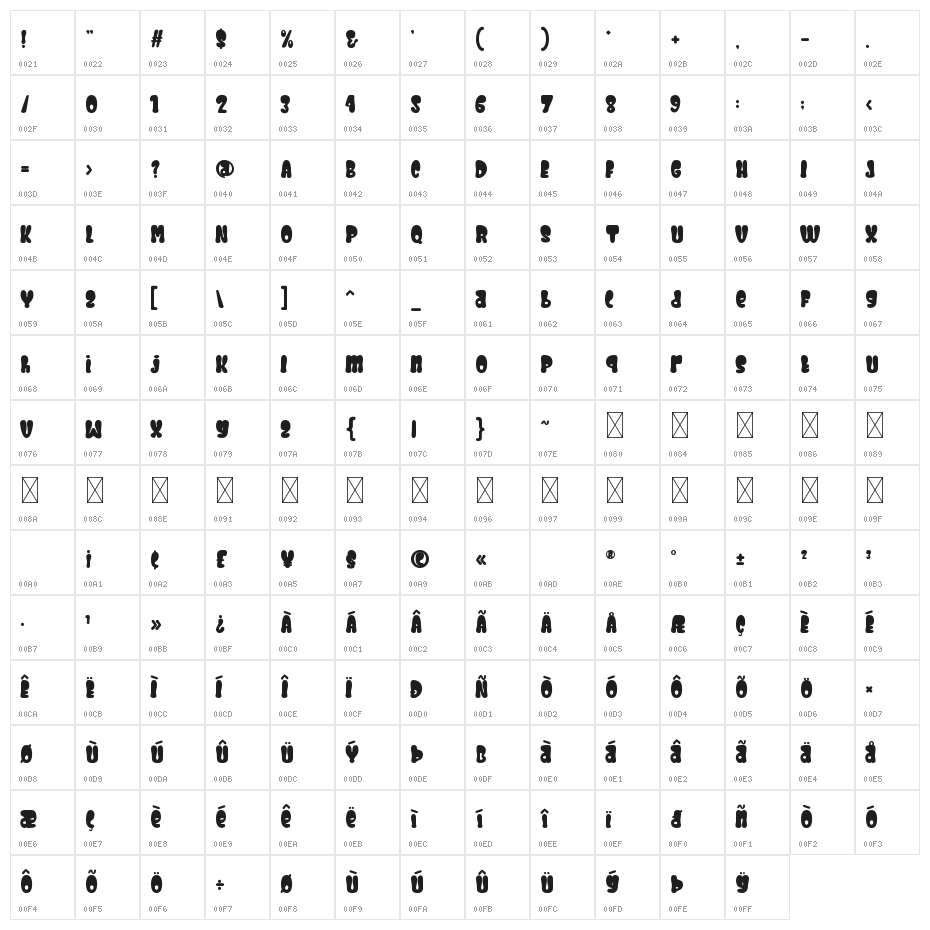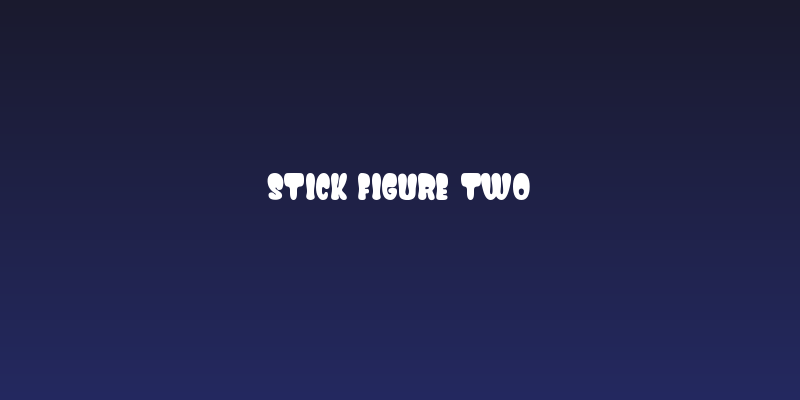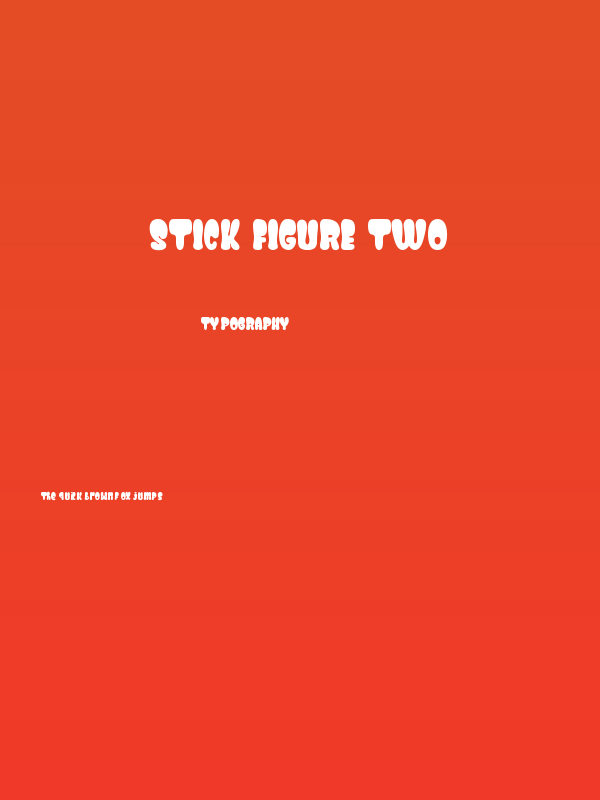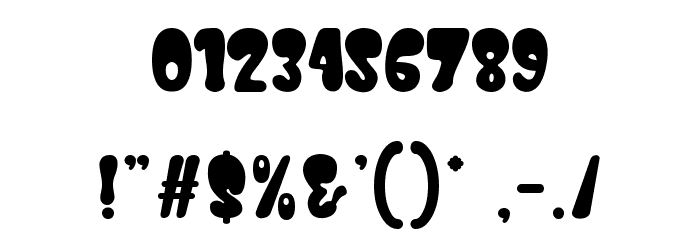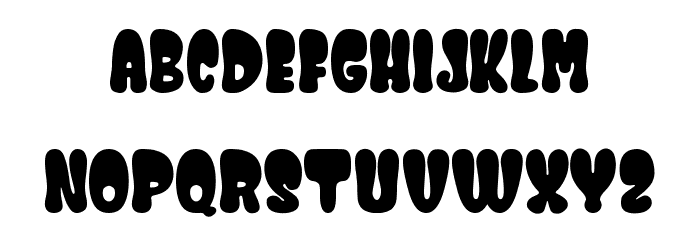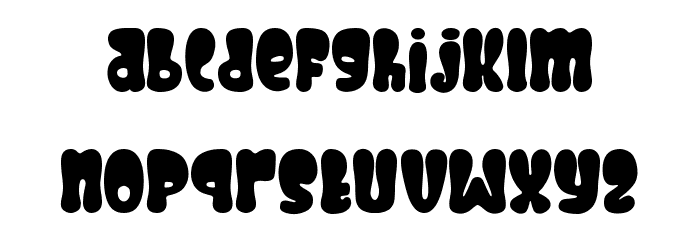
Stick Figure Two Font
Stick Figure Two Description
This playful and bold font features rounded, bubbly characters that exude a sense of fun and whimsy. Each letter is crafted with a thick, uniform stroke, giving it a substantial presence on the page. The characters are slightly irregular, adding to the font's quirky and informal charm. The numbers and special characters maintain the same playful style, ensuring consistency across all text elements. The font's unique style makes it ideal for projects that require a touch of humor and creativity.
| Overall Style | Playful, Quirky, Fun |